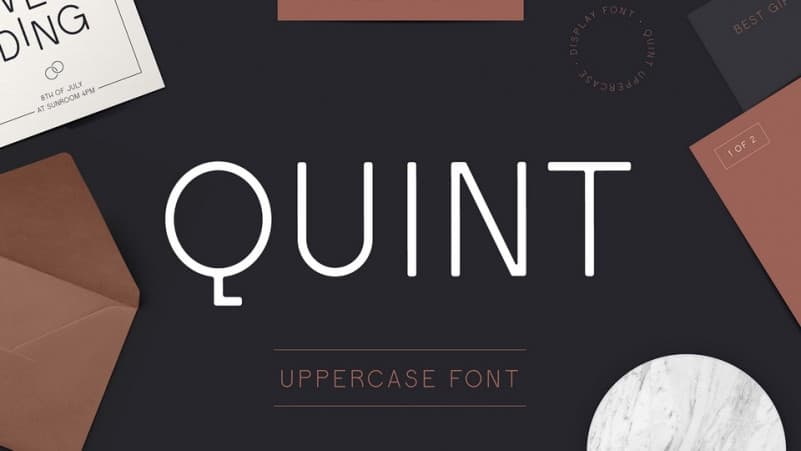
Quint Sans Serif Font
Quint Sans Serif Font is a new modern all-caps sans serif font with versatility in creativity. Unique with its attractive Sharpness, a free sans serif display font with geometric construction and round details that creates elegant letter shapes. Modern and contemporary style with retro details make it an excellent choice for headlines, logotypes, branding, posters and magazines.